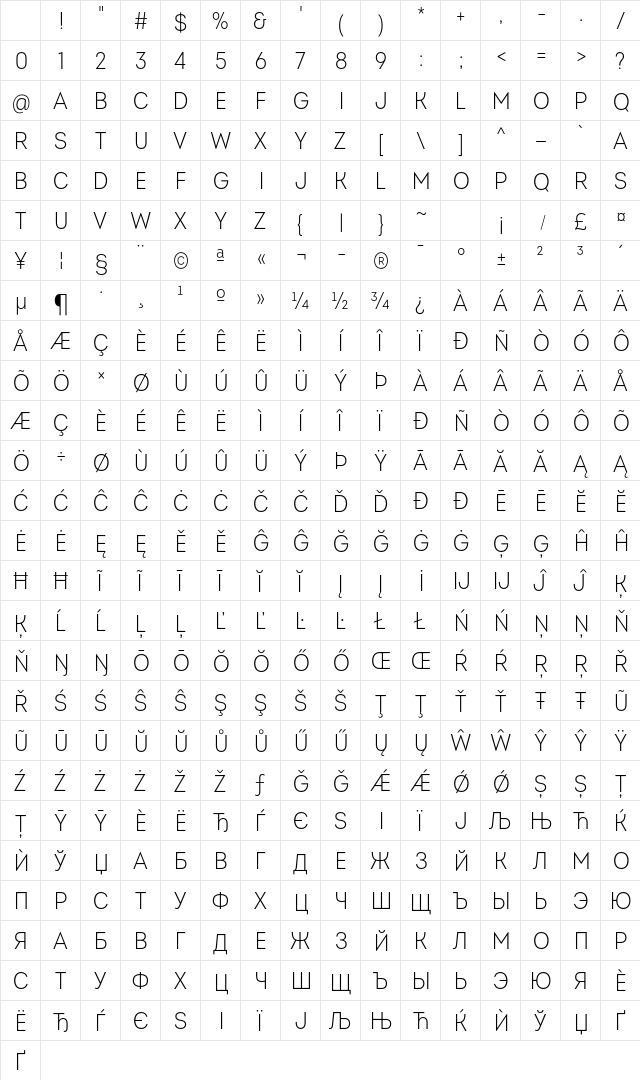
Complete Intro Demo Cond Light CAPS glyph index. Displaying only characters natively supported by Intro Demo Cond Light CAPS font.
Intro Demo Cond is a composed and adaptable typeface that performs quietly and consistently across a wide range of design contexts. Its slender proportions lend an understated elegance to any composition. Its narrow stance lets it pack a punch even in space-constrained designs.